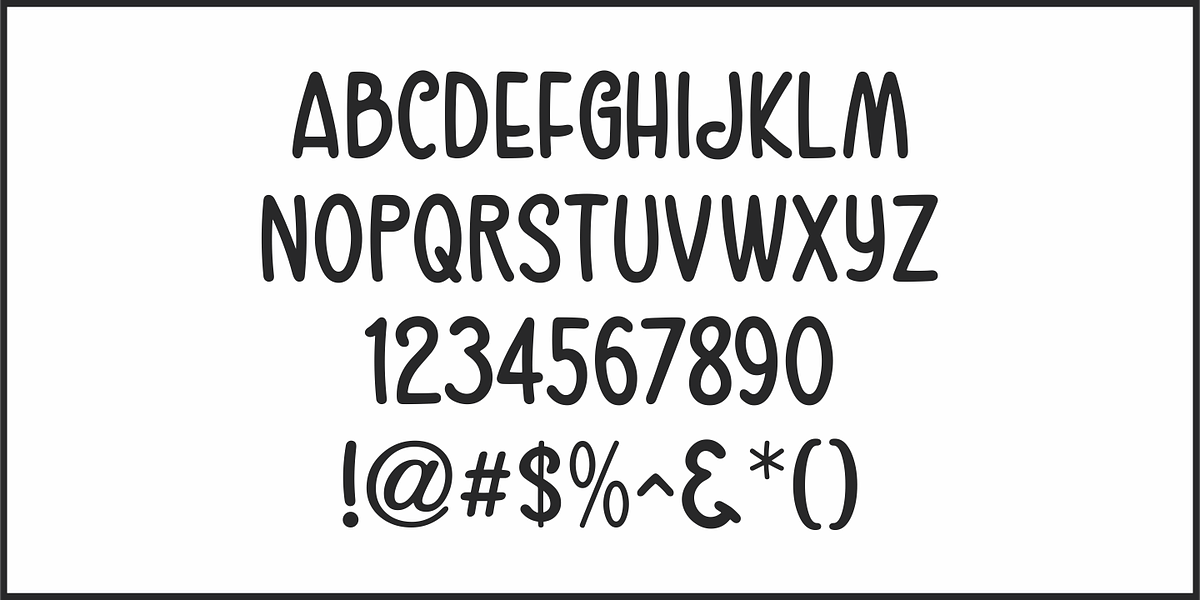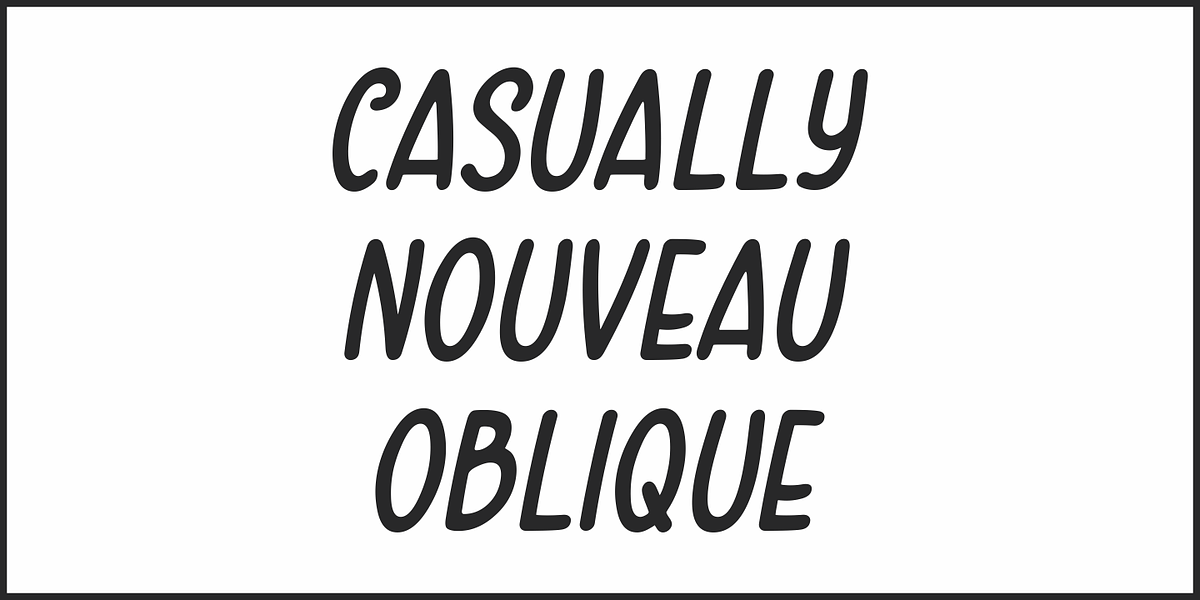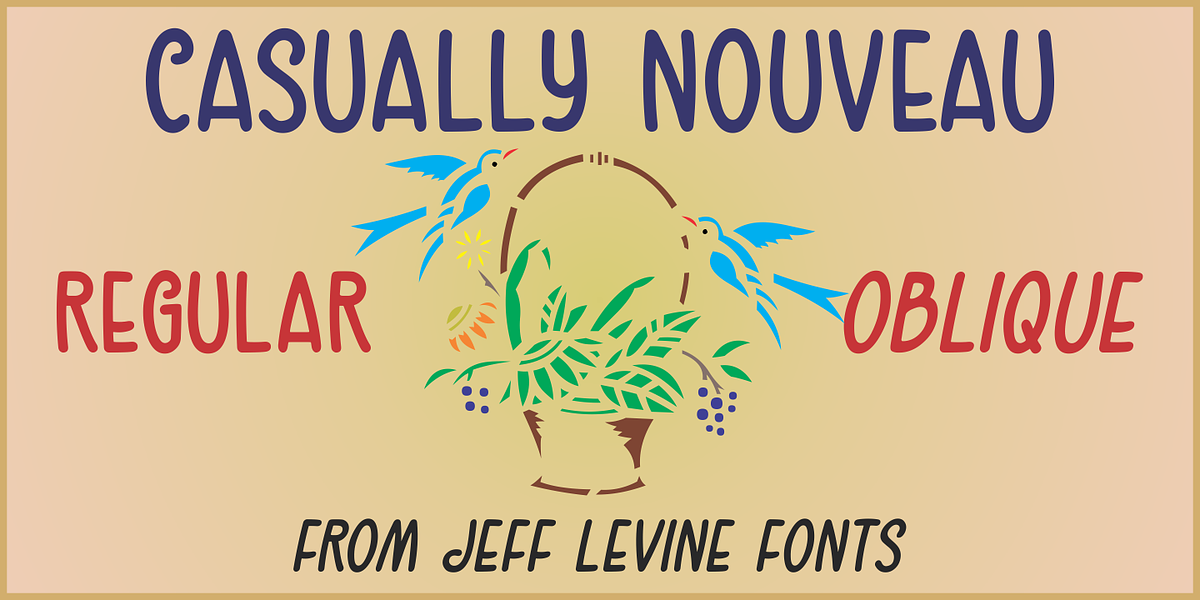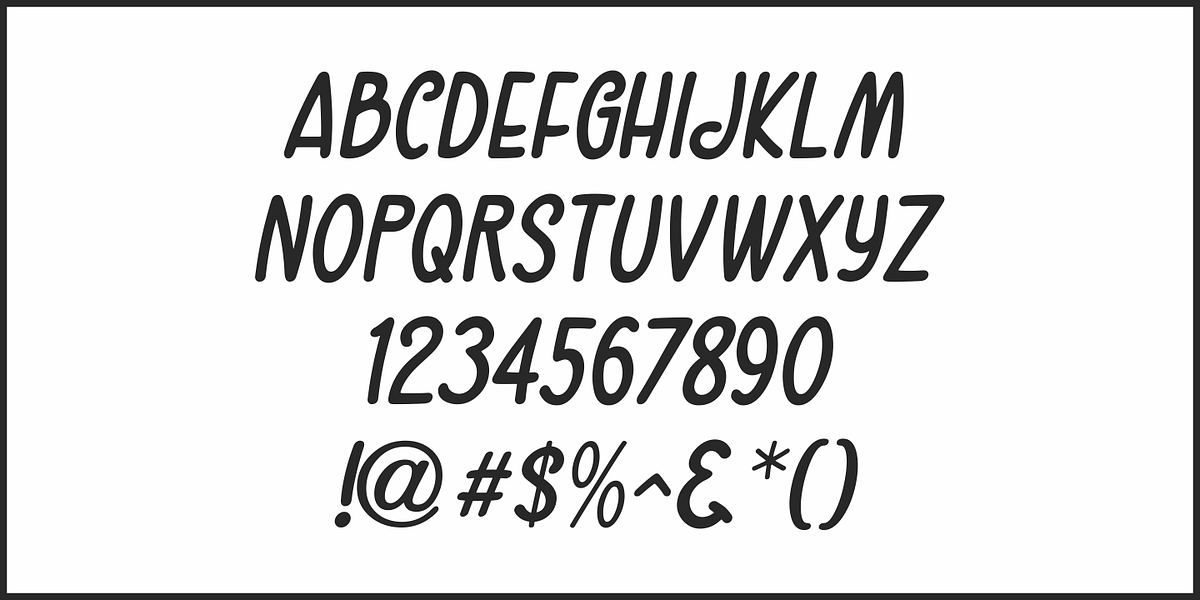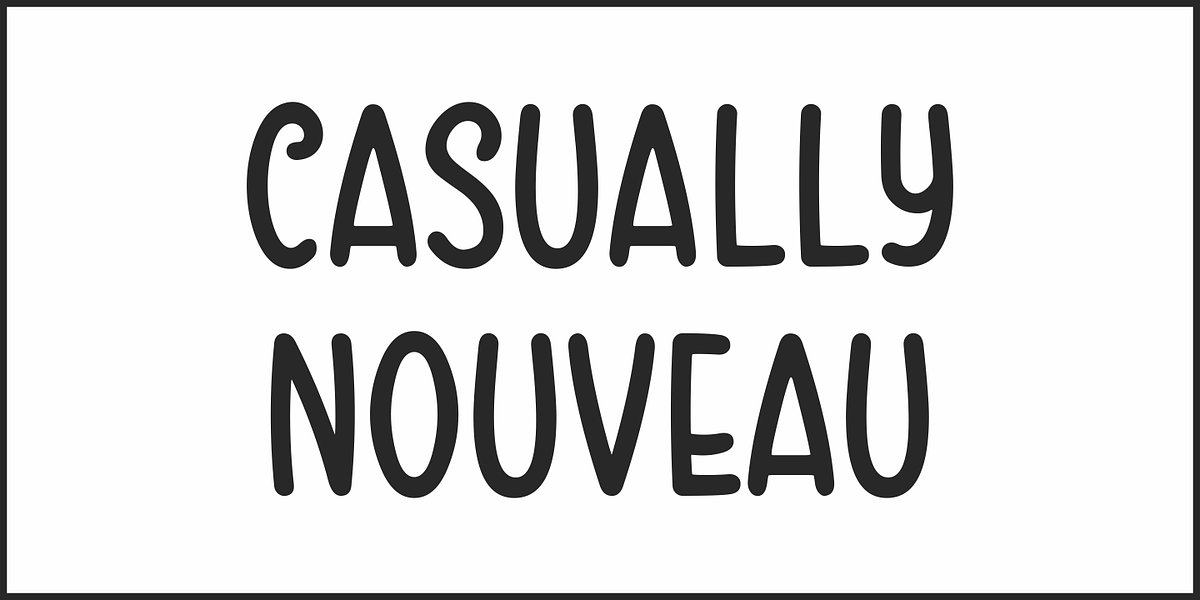
Casually Nouveau JNL
The 1930 sheet music for “A Peach of a Pair” from Paramount Pictures’ “Follow Through” listed the stars and production credits in a wonderfully casual, free-form Art Nouveau hand lettering.
This has been recreated digitally as Casually Nouveau JNL, and is available in both regular and oblique versions.